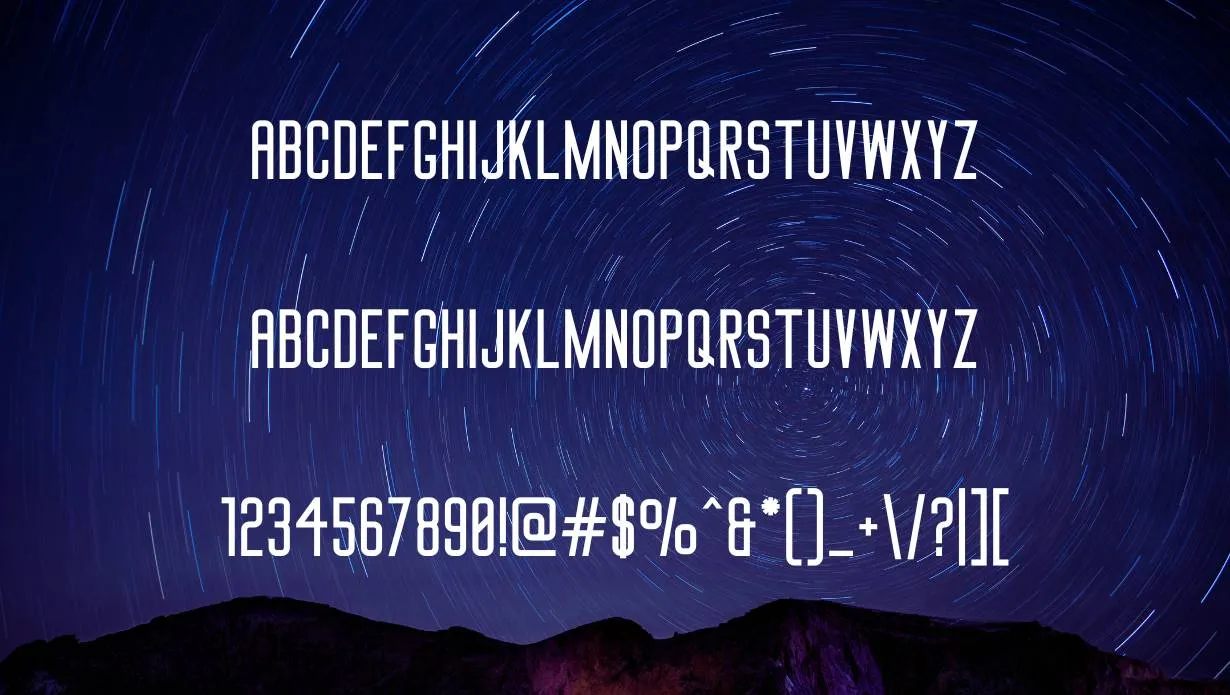
Big Stem font is the bold declaration, making your words stand tall and proud. Ideal for impactful headlines or attention-grabbing posters, it adds a strong presence.
The robust and commanding weight ensures your message is noticed, and its powerfully proportioned width boldly announces your words to the world. Big Stem is the font that speaks with authority, making it the perfect choice for any message that requires a bold and confident statement.